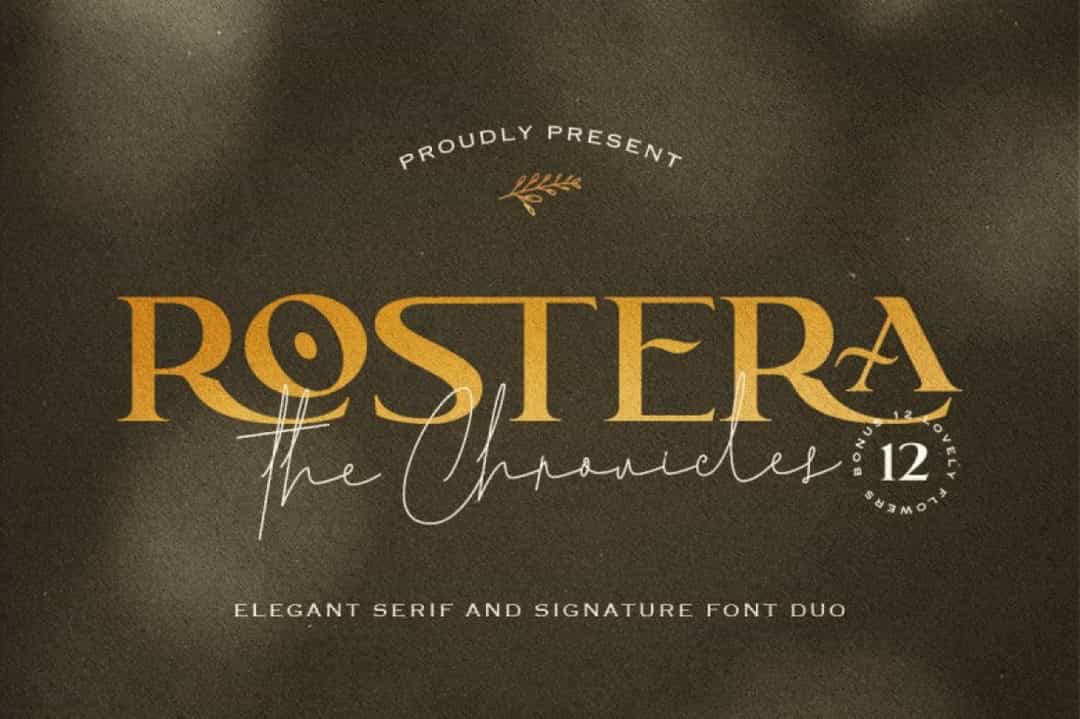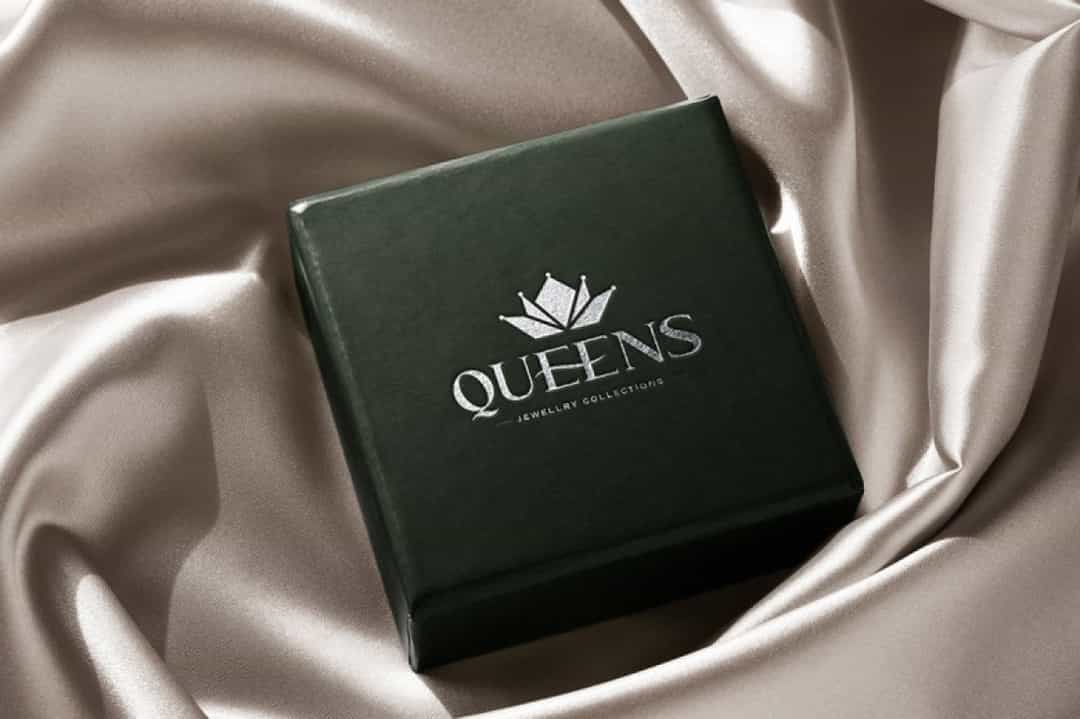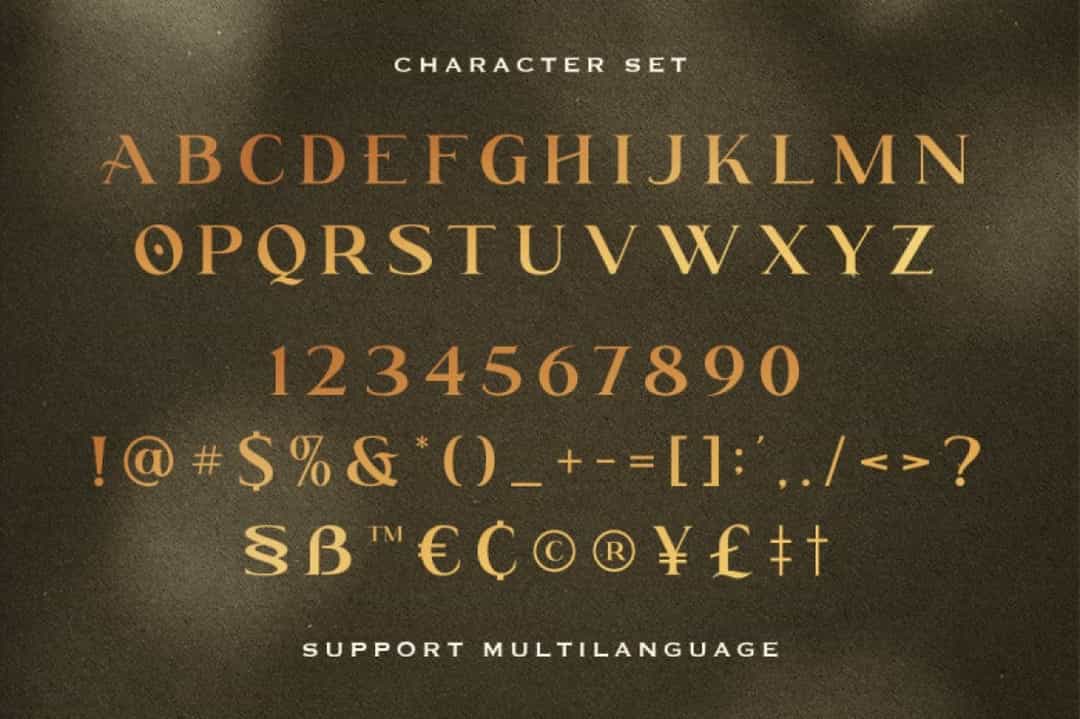
Rostera and the Chronicles is our font designed with human qualities in mind, picturing that person as someone you would want to sit down and have tea with; someone with strong character that exudes positivity while always smiling, whom we would welcome into our fold and give an enormous amount of confidence – now available and right there for all to see!